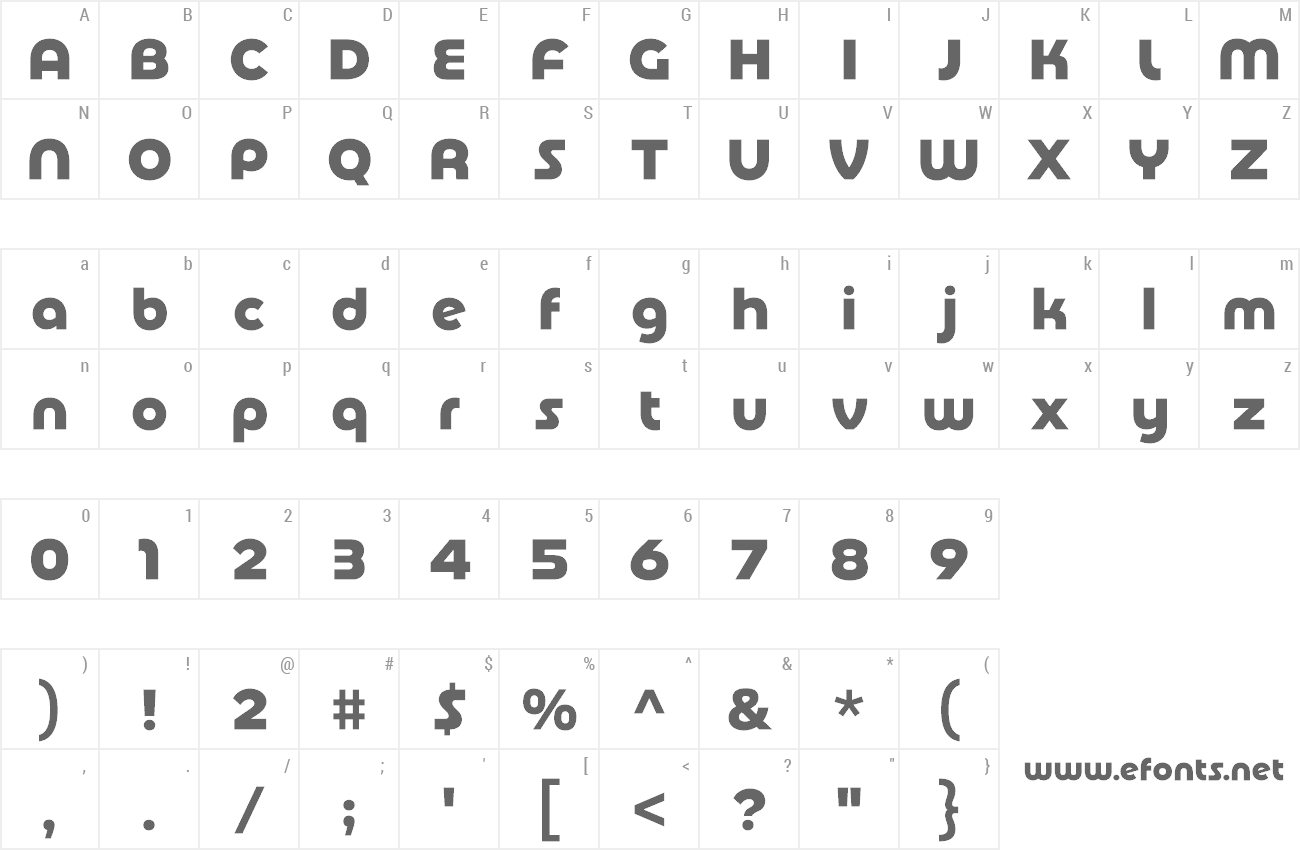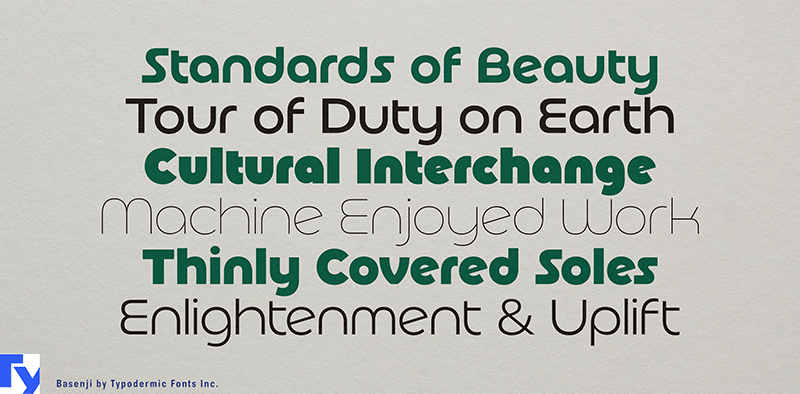
Basenji draws on the playful geometry of 1970s classics like Rondo, Pump, Bauhaus, and Blippo, reimagined with the precision and flexibility modern designers expect. Its rounded forms shift easily from soft, friendly text to bold sculptural headlines, making it equally comfortable in branding, editorial design, or large-scale signage. Rooted in retro charm but refined for contemporary use, Basenji brings the warmth of the past into today�s design workflows. These fonts include a license that allows free commercial use: sometimes referred to as a desktop license. This allows you to install the fonts on a computer and use them to create posters, web graphics, game graphics, t-shirts, videos, signs, logos and more. Read the license agreement for details. If you'd like to embed this font in an app, on the web or anything that's not covered by the desktop license agreement, visit the link below. You'll find distributors who offer different types of licenses, or you can contact me for help. https://typodermicfonts.com/basenji/ These free fonts are part of a larger font family. Check out the rest of the family through the link above. |